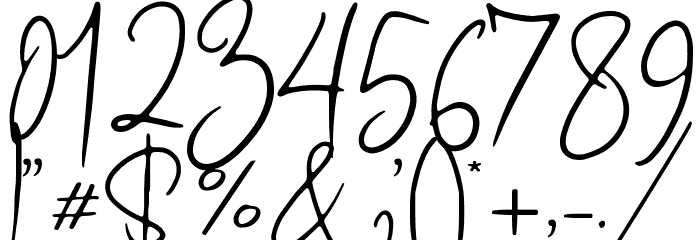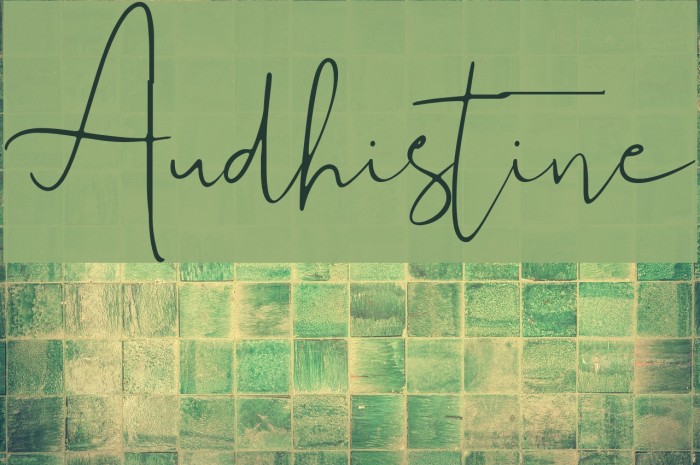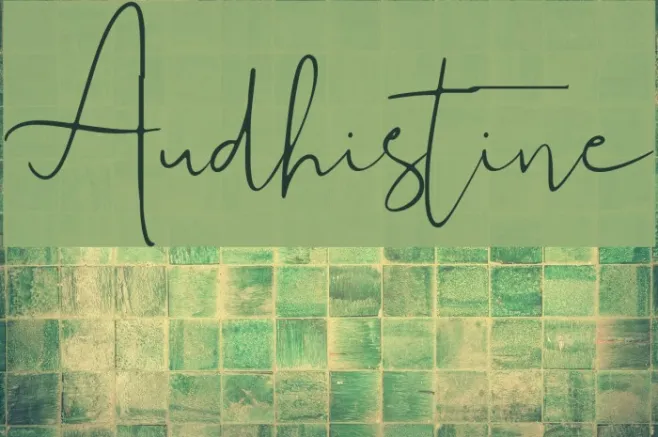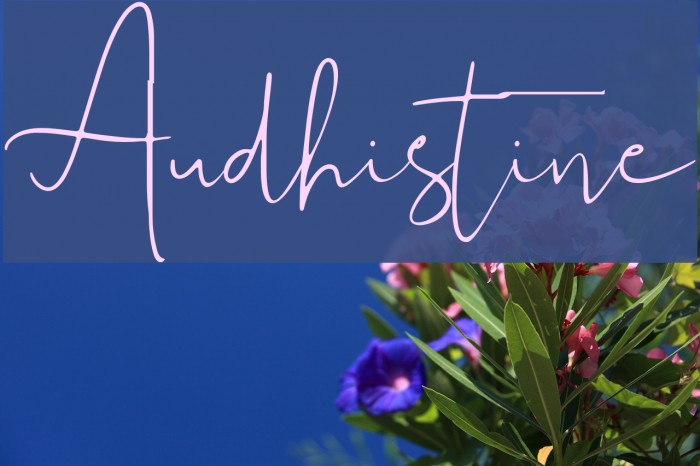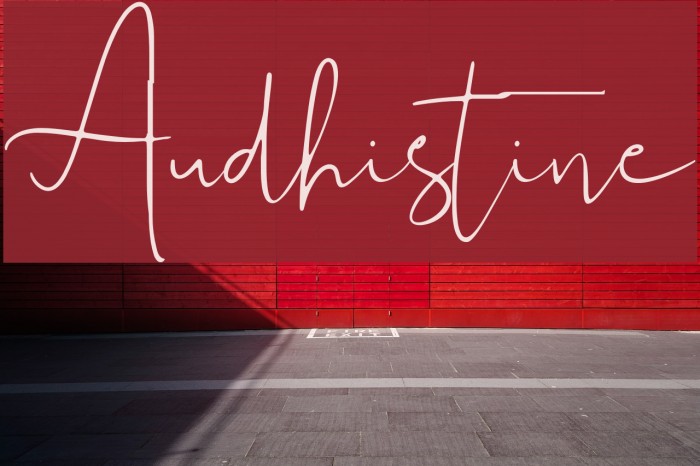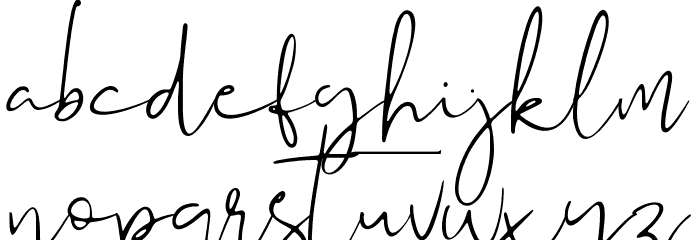
Audhistine Font
This font exudes a modern, handwritten style with a casual and flowing appearance. The uppercase letters are elegantly connected, while the lowercase letters maintain a consistent, cursive form. The numerals are distinct yet harmonious with the overall script style, featuring smooth curves and a slight slant. Special characters are seamlessly integrated, maintaining the font's fluidity. The strokes are thin, providing a delicate and airy feel, which enhances its handwritten charm. This font is perfect for projects that require a personal touch, such as invitations, greeting cards, or branding materials.
A modern, handwritten script font with a casual and flowing style.
• Proposed Projects: Ideal for invitations, greeting cards, personal branding, and creative projects requiring a personal touch.